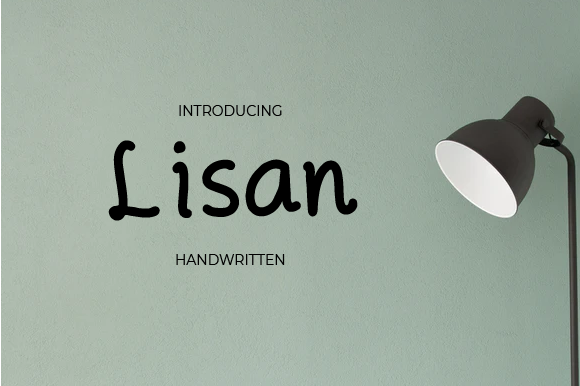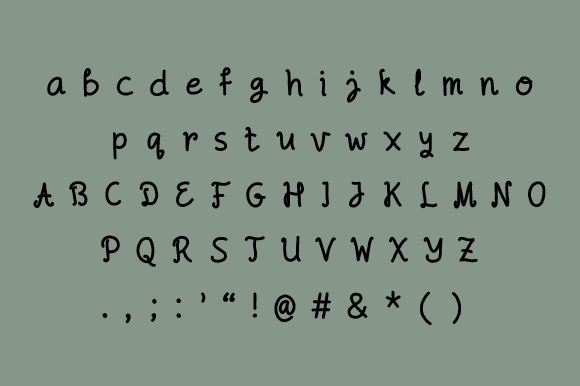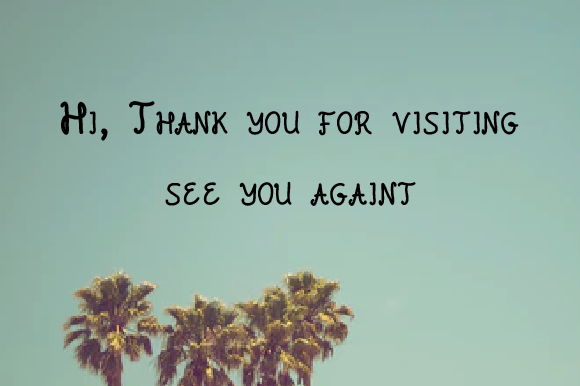
Lisan Font
About Lisan Font
Lisan is a sweet and artistic handwritten font. It maintains its classy calligraphic influences while feeling contemporary and fresh. This versatility will appeal to a wide range of crafty ideas, from letterheads and titles, to stationery.